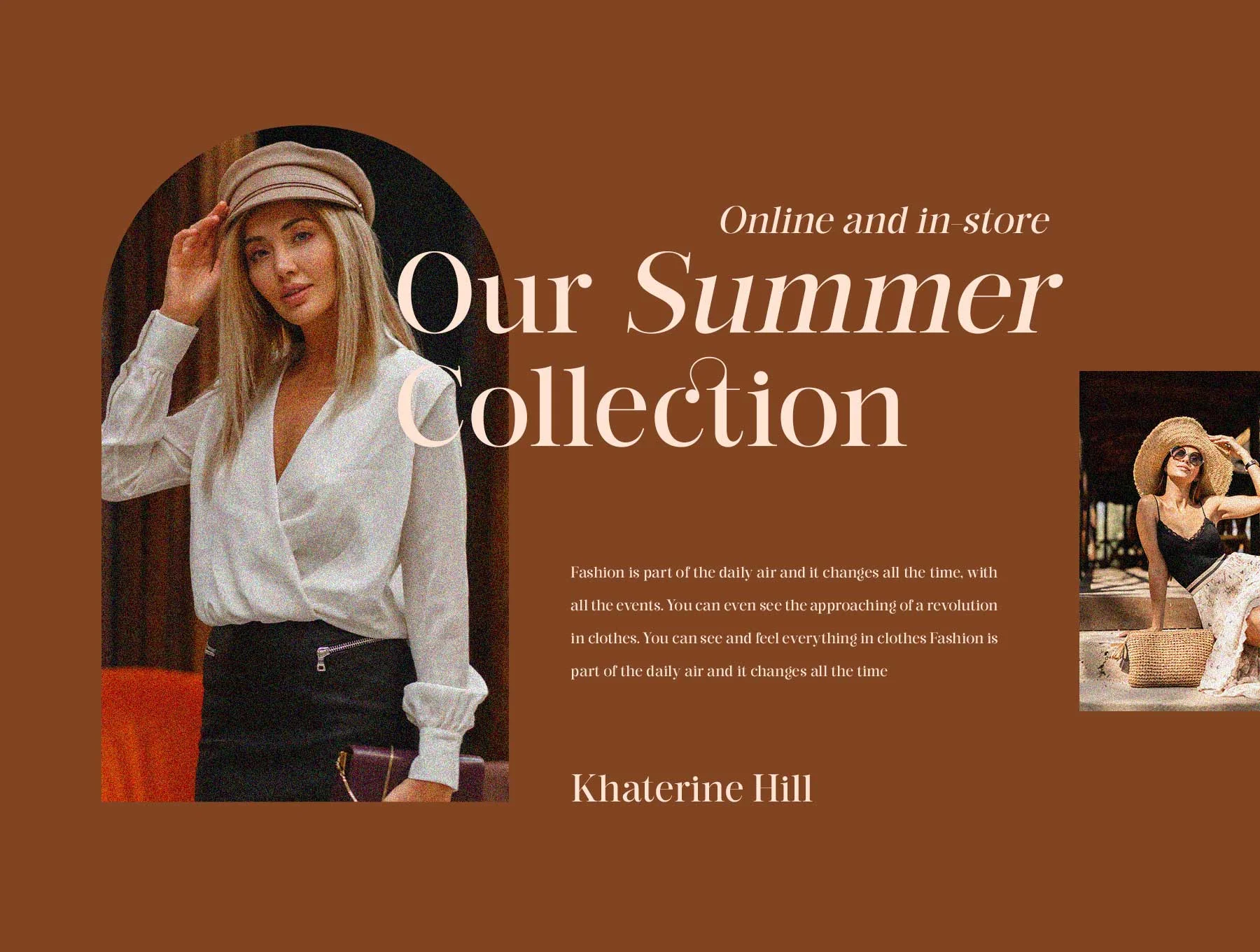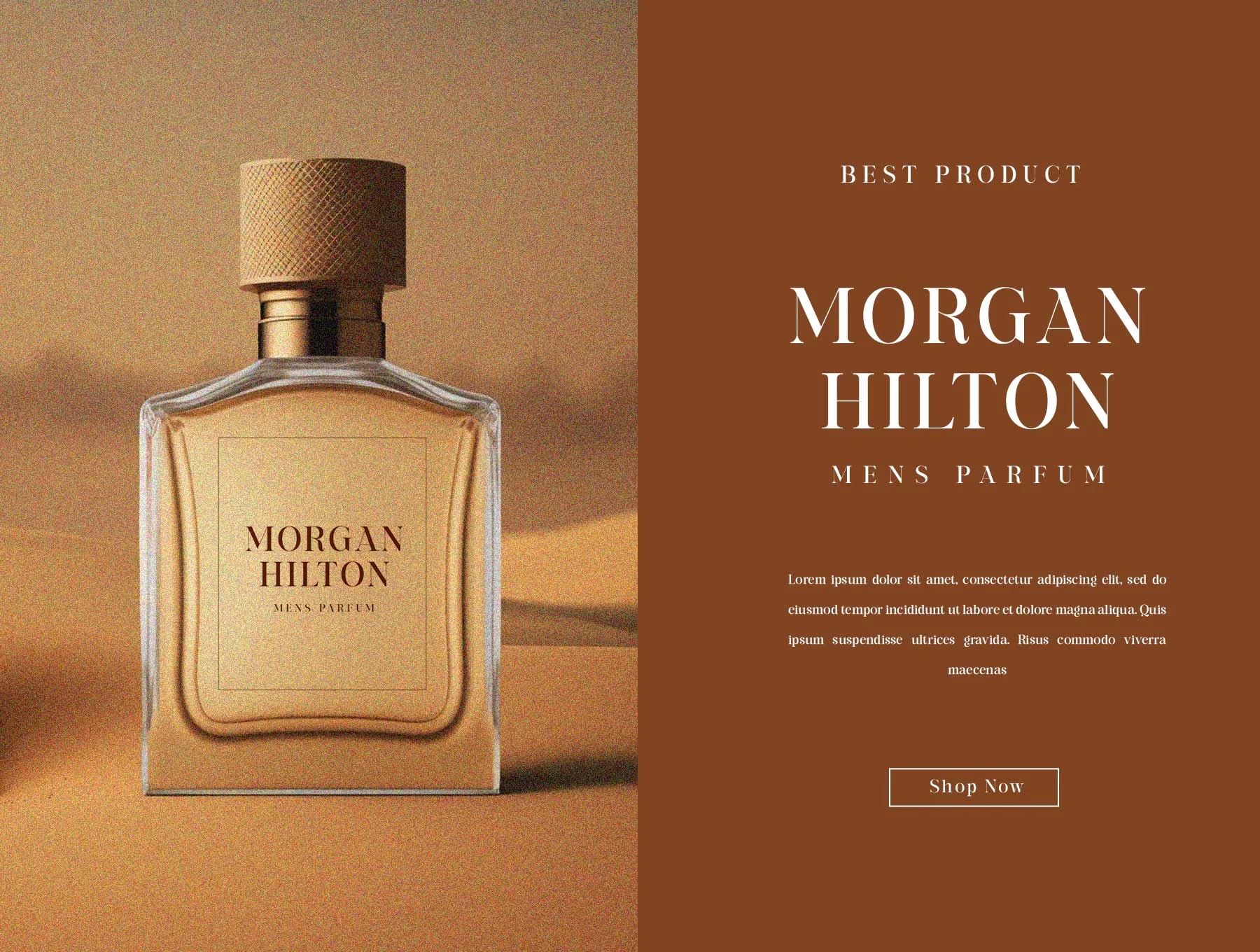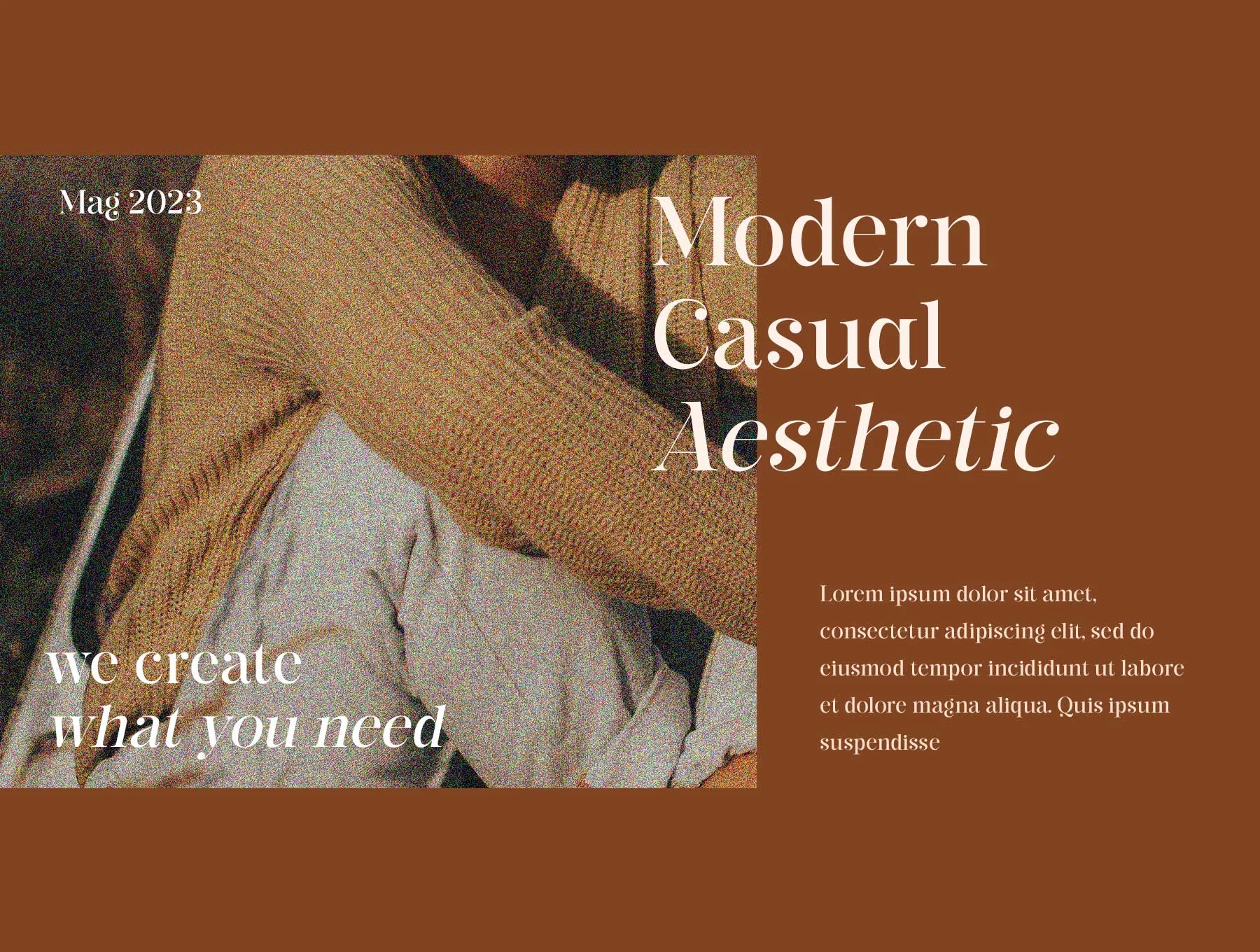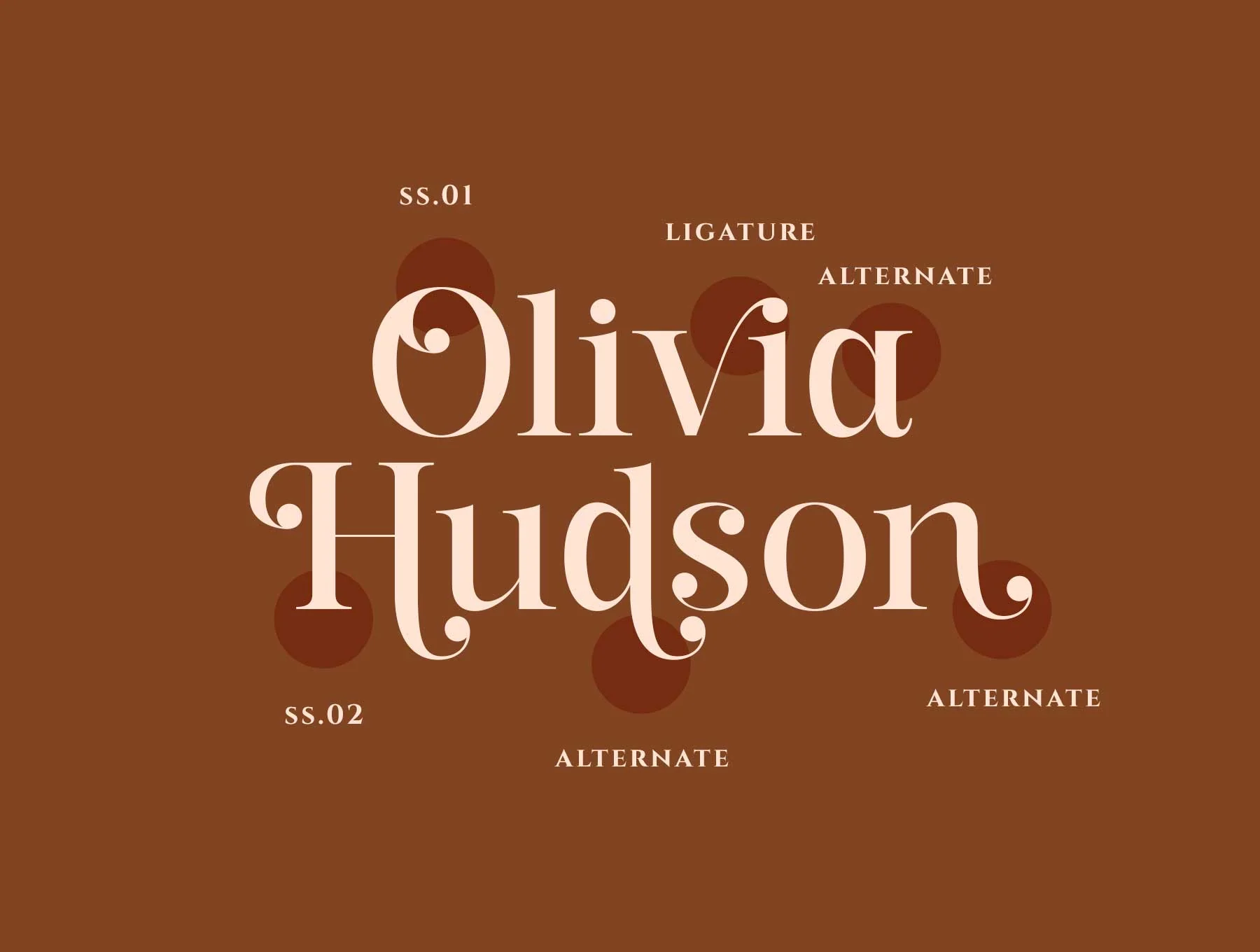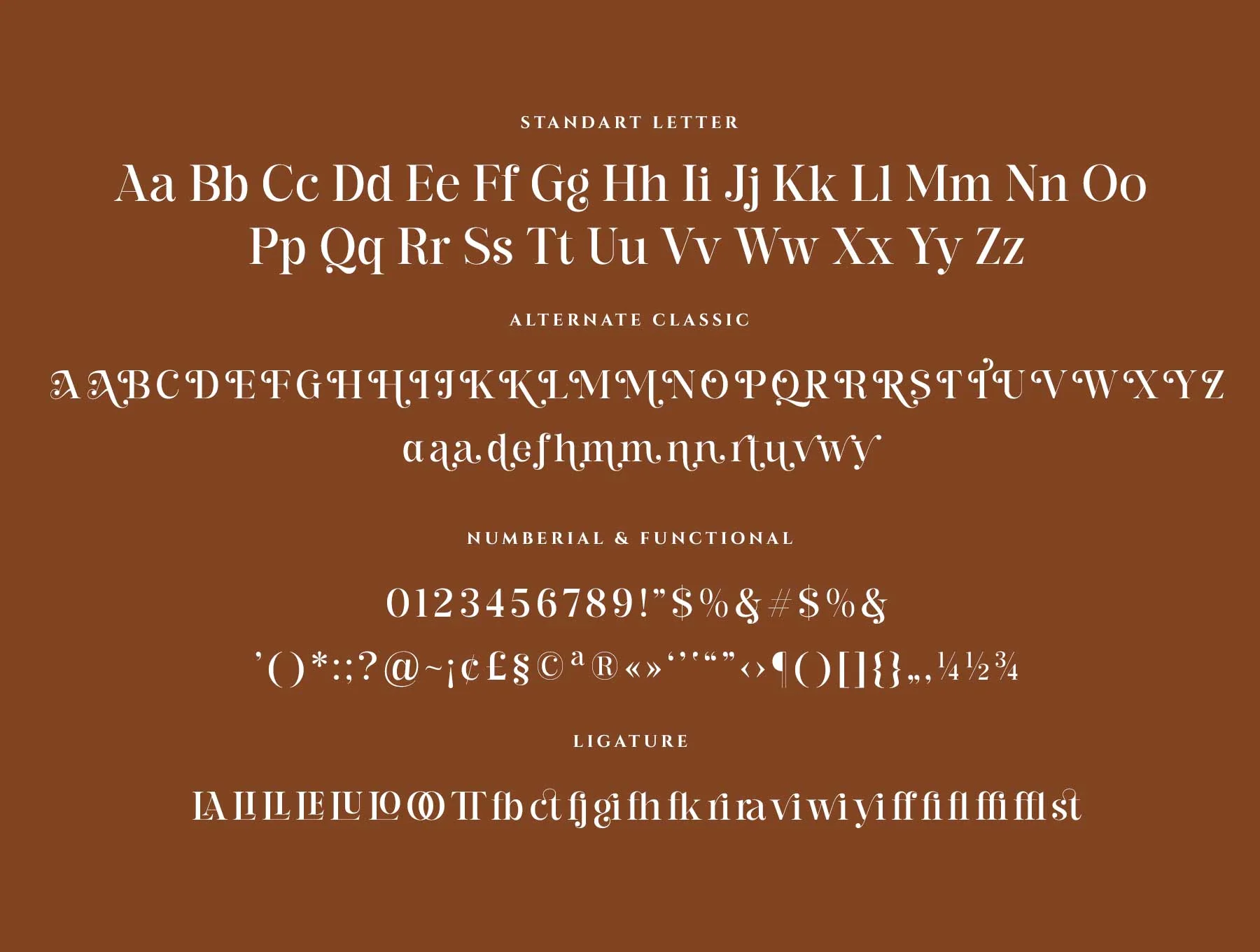
The Glorious Modern and Classic Font
A splendid typeface with contemporary and timeless flair
Basic uppercase and lowercase letters A–Z and a–z
Numerals plus functional characters
Alternate characters and ligatures
The Glorious blends contemporary and vintage serif style in uppercase/lowercase, with matching italics, alternates, and ligatures for elegant branding, logos, ads, photos, stationery, magazines, invitations, labels, and products. Includes A–Z/a–z, numbers, symbols, OTF, TTF, WOFF. Easy PC/Mac install; works in Adobe apps and Word. Supports many European languages.